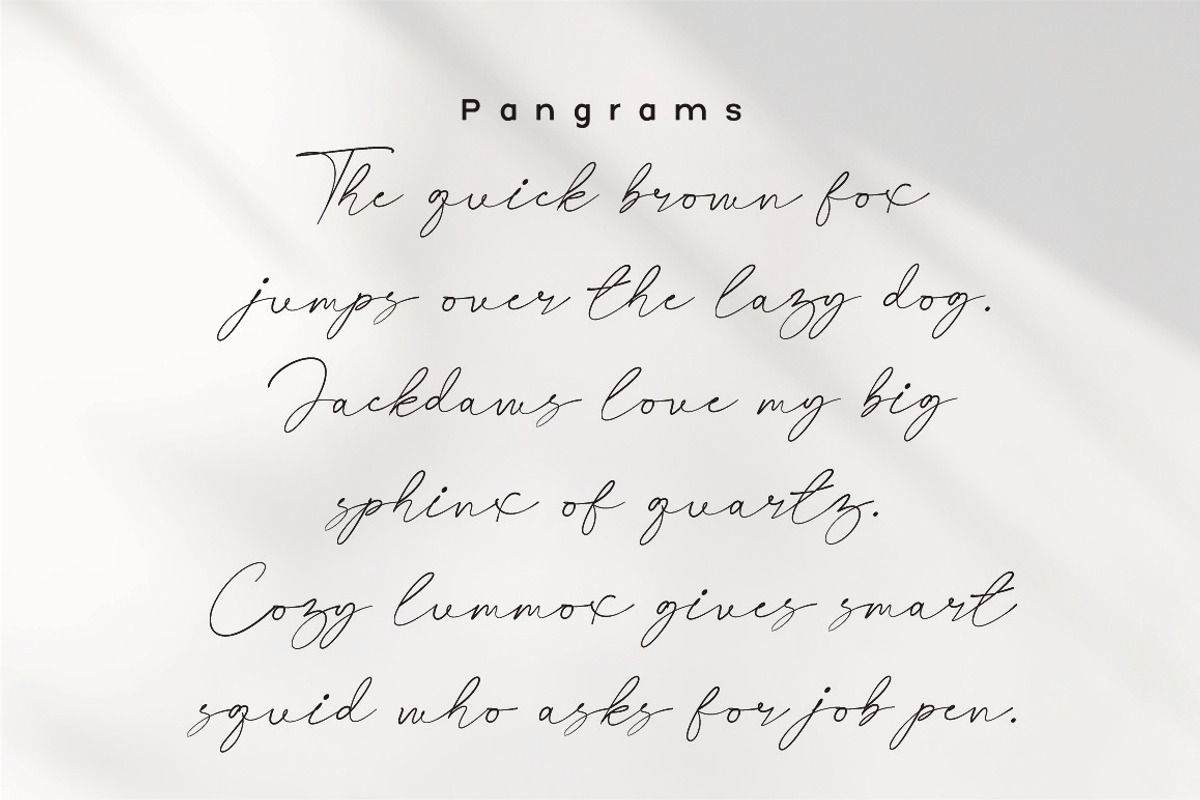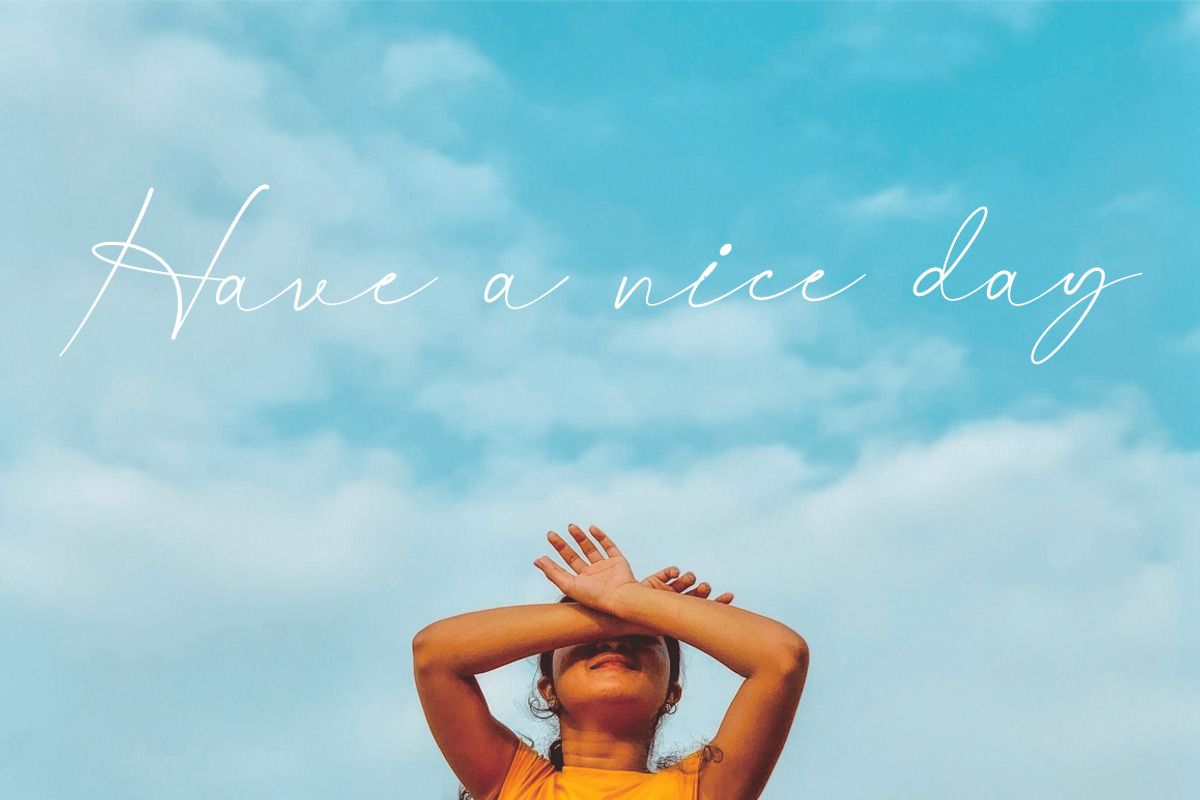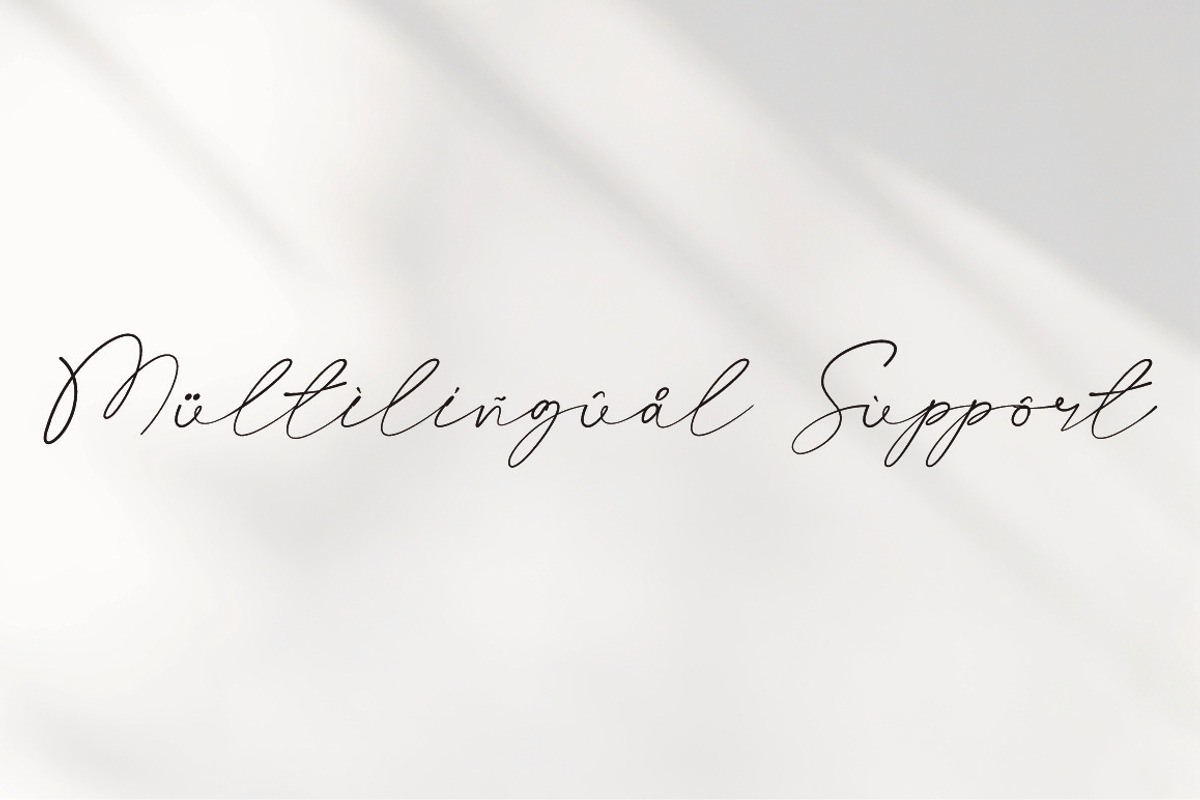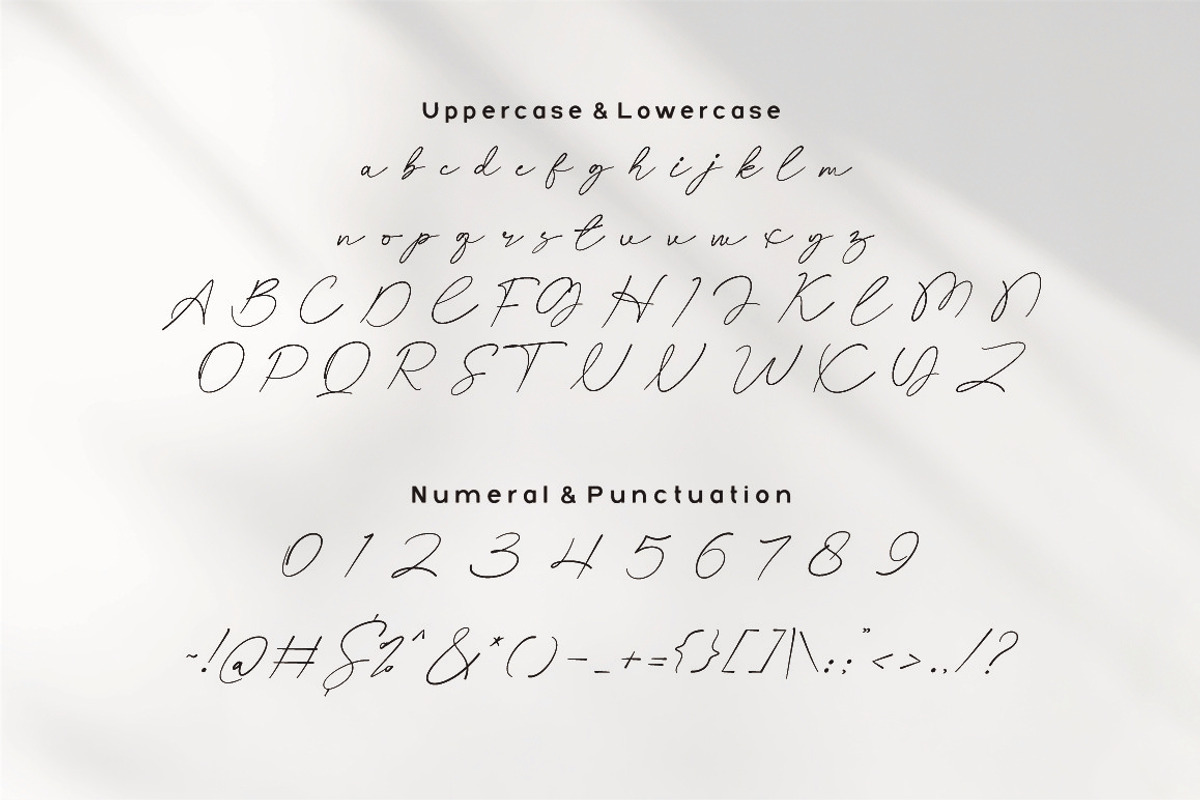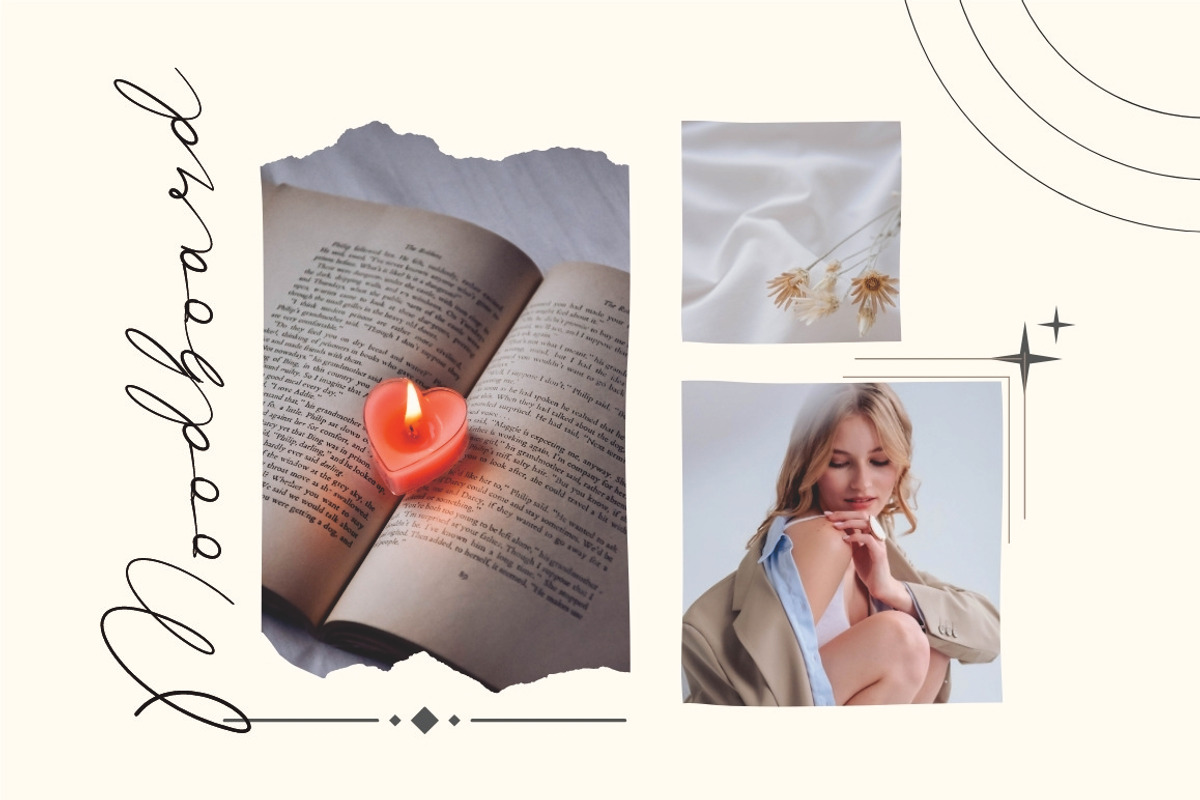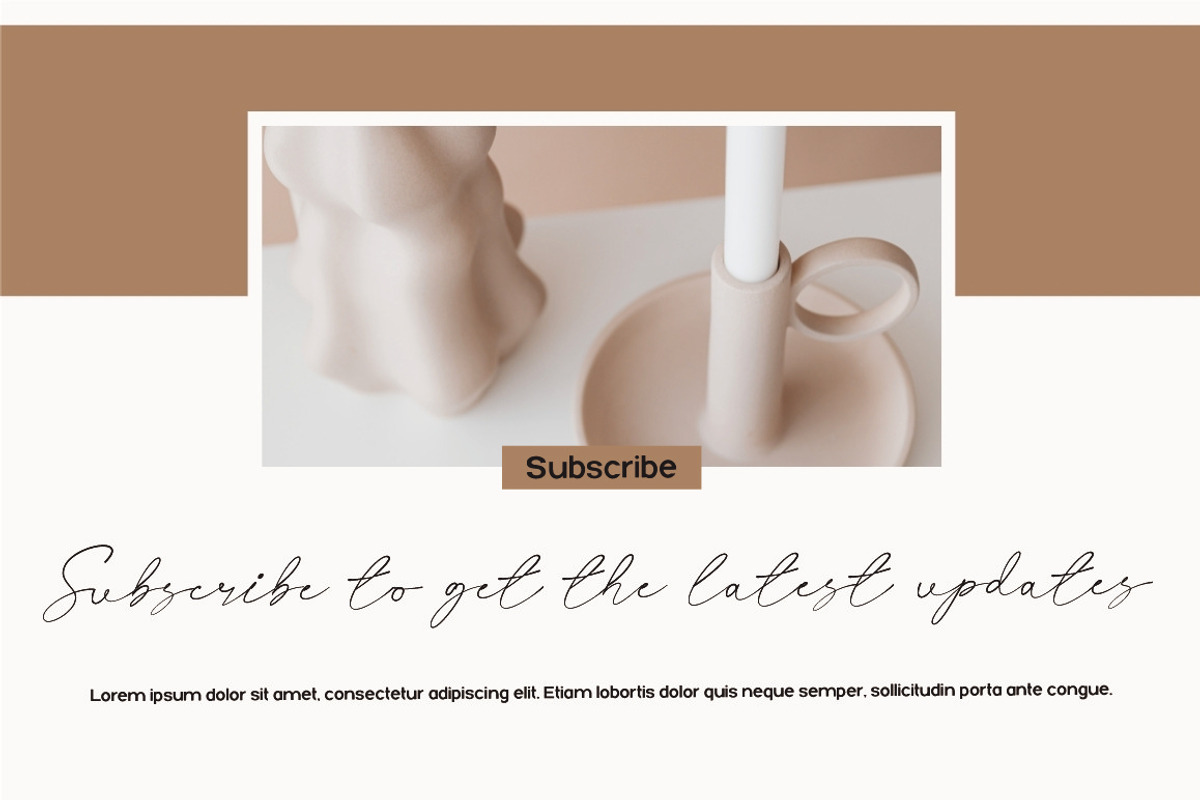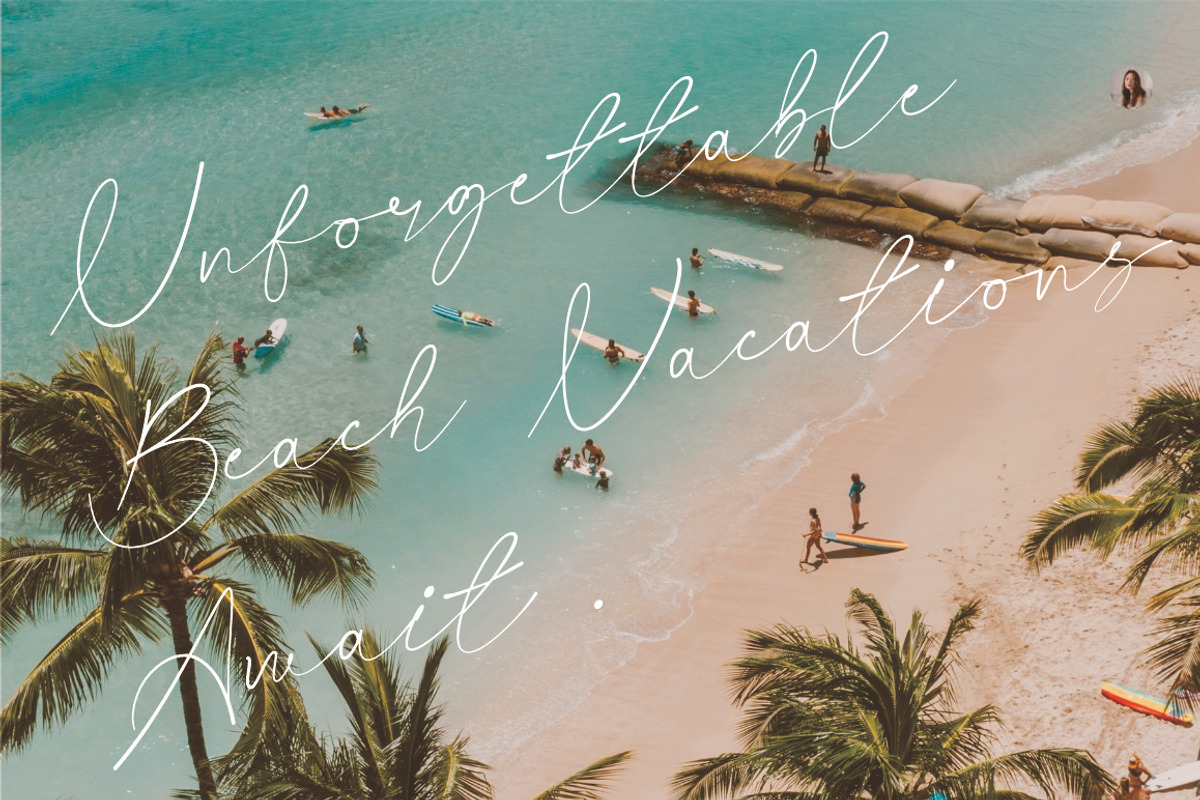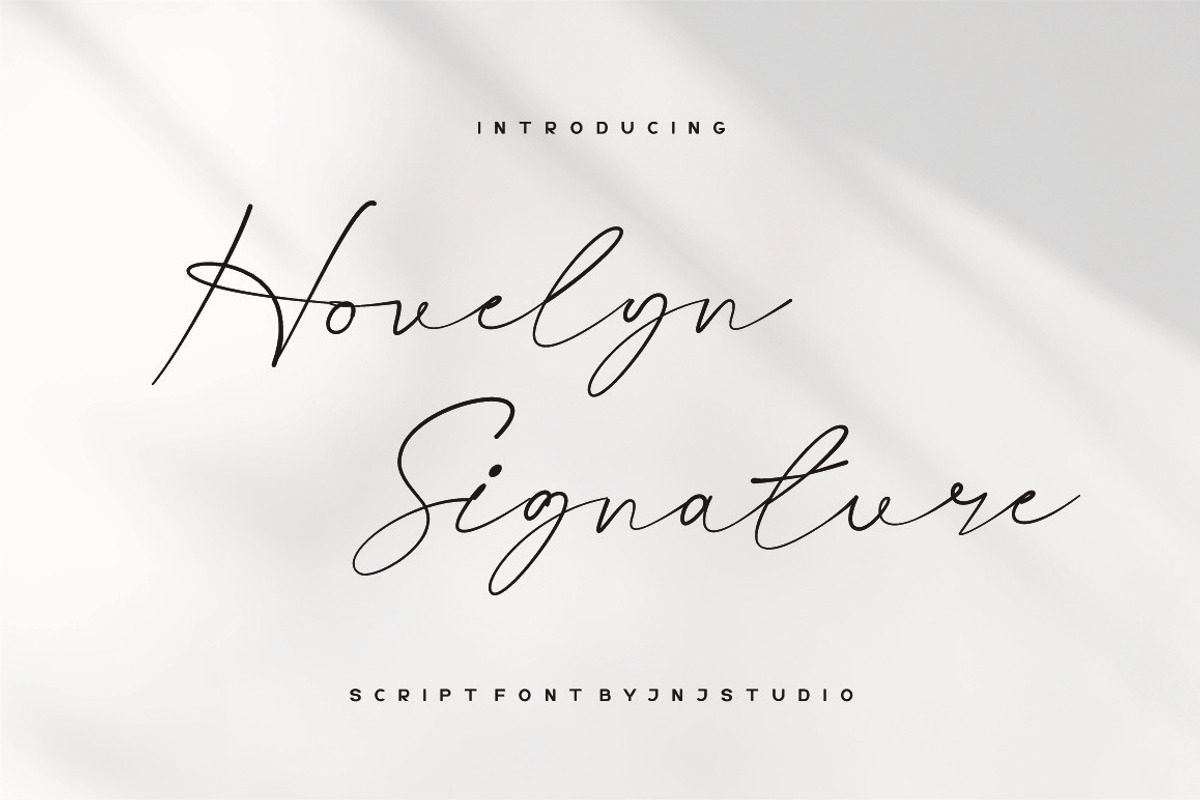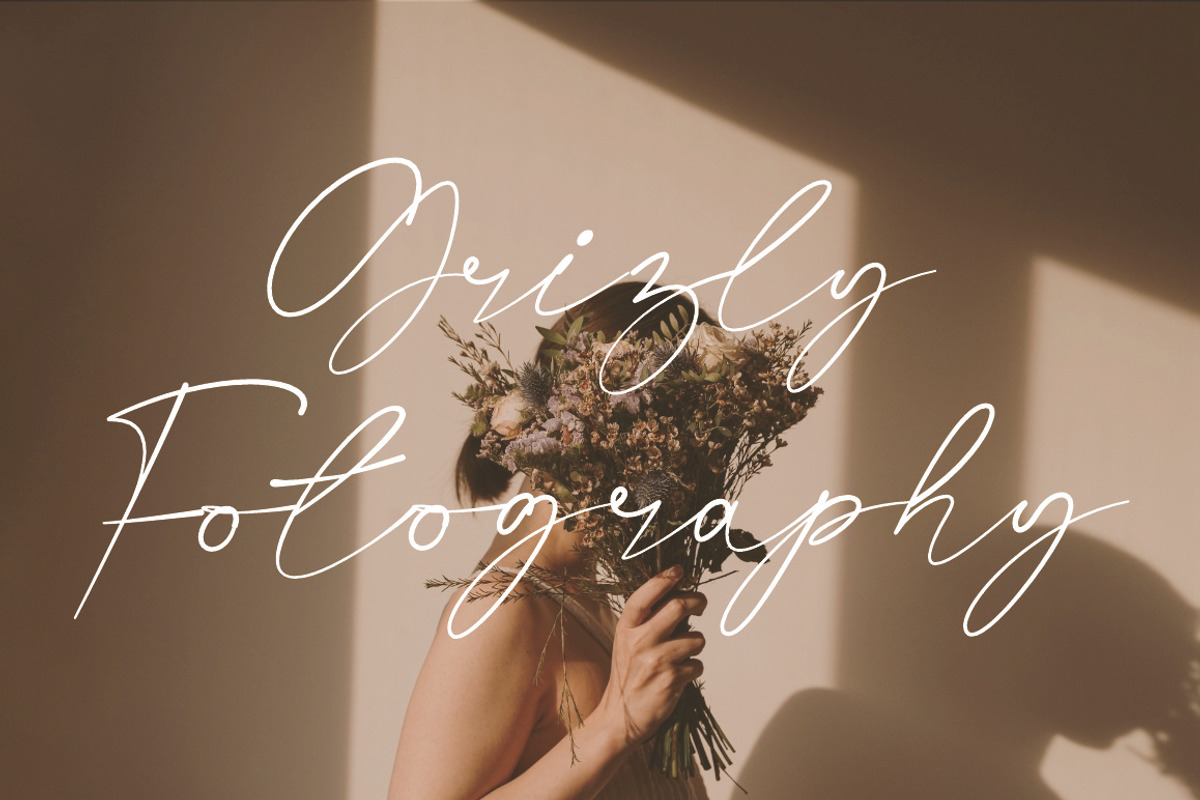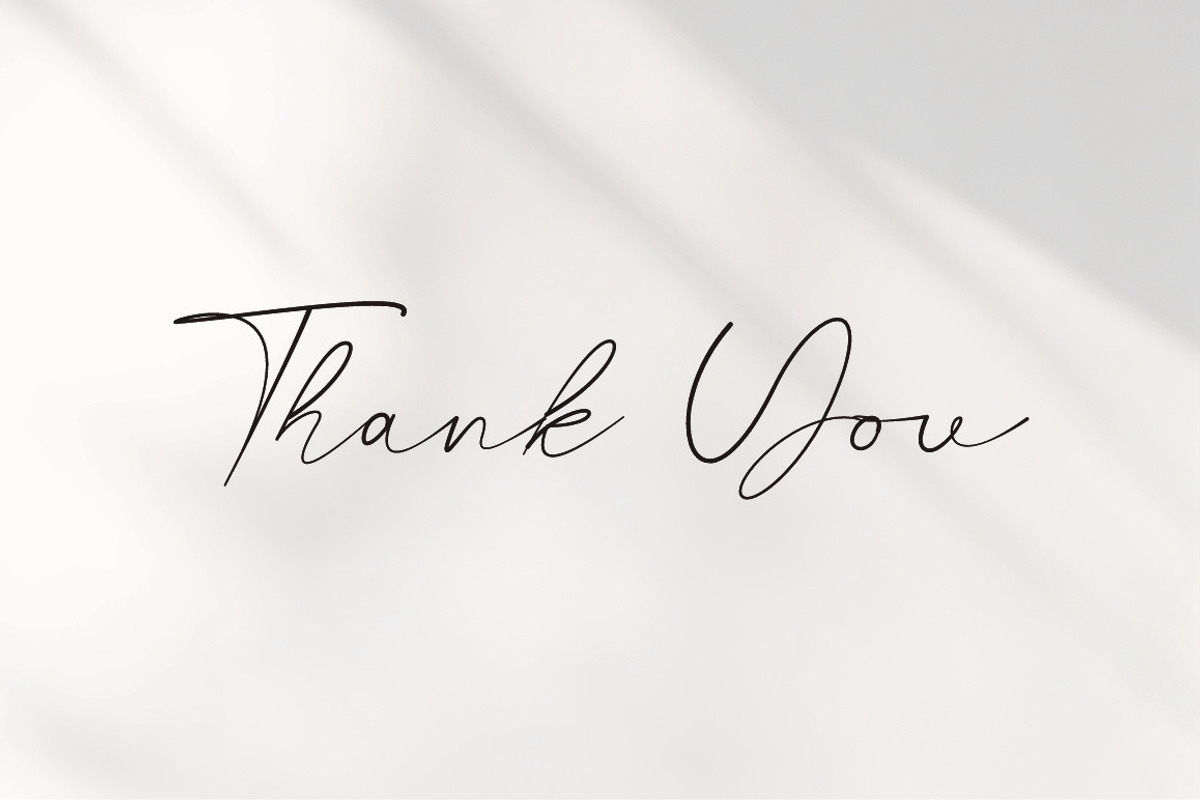
Hovelyn Signature
Introducing "Hovelyn" Signature is a refined and expressive signature-style font that captures the elegance of natural handwriting with a modern touch. Designed with smooth curves, fluid strokes, and balanced proportions, this font delivers a personal yet professional feel. Its graceful letter connections and subtle variations in line weight create an authentic handwritten impression, making it perfect for branding, logos, invitations, social media content, fashion labels, and personal signatures.
Hovelyn Signature reflects sophistication, warmth, and confidence—ideal for creators who want to convey a timeless, classy, and heartfelt identity through typography. Introducing "Kalessa Signature" is an elegant and fluid script font that captures the charm of handwritten signatures. Designed to evoke sophistication and personal flair, Kalessa Signature blends smooth, flowing curves with delicate strokes, making it perfect for branding, logos, wedding invitations, and social media posts.
Its natural and stylish appearance mimics authentic penmanship, offering a sense of luxury and authenticity. Whether you're creating a fashion label or adding a signature touch to your design, Kalessa Signature delivers a timeless and graceful aesthetic.